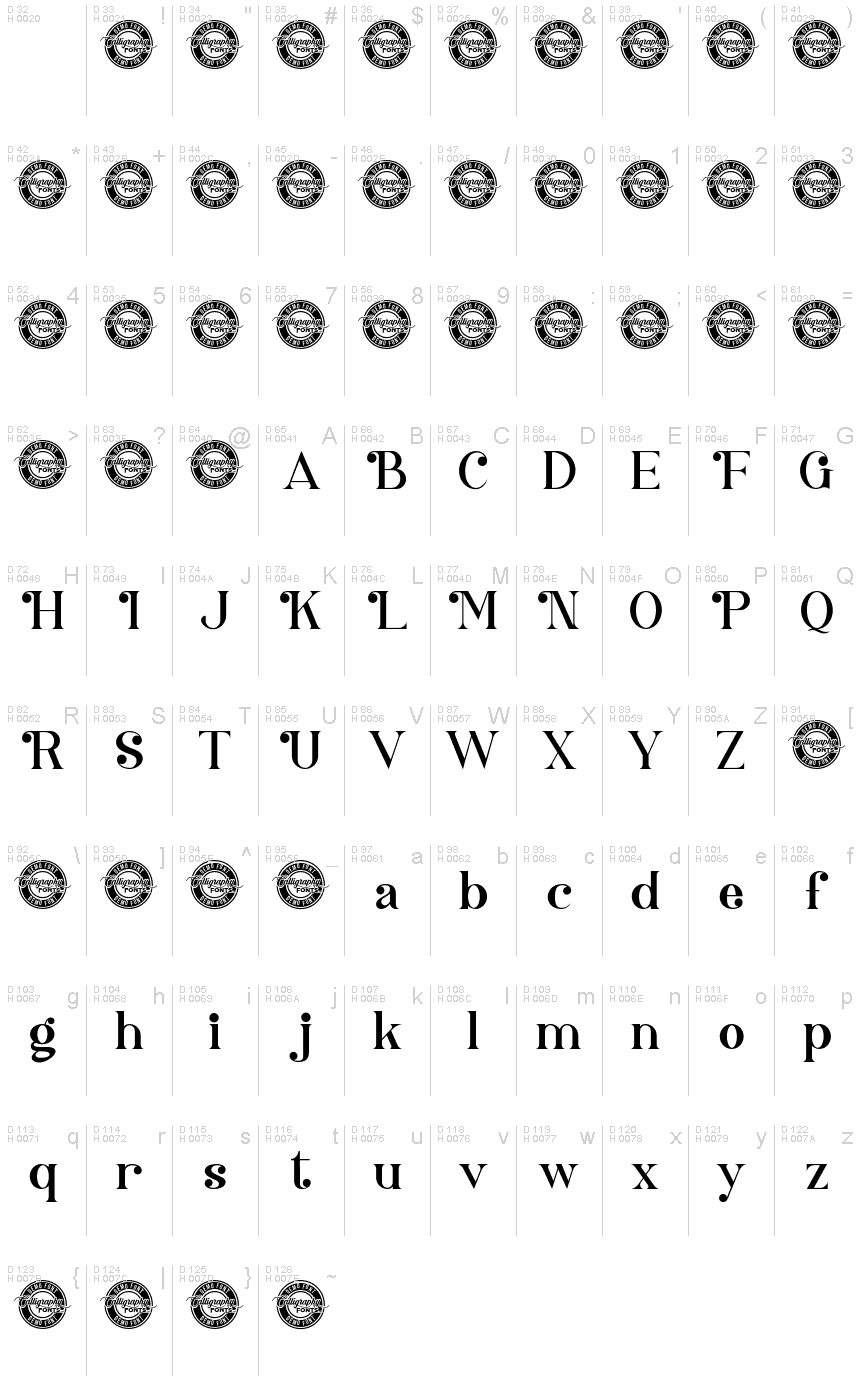
Margalitha Demo
Margalitha is a timeless serif font designed by Widiyanti and Sarah SP. With its classic letterforms and elegant curves, Margalitha is perfect for adding a touch of sophistication to any project. Its versatile style makes it suitable for a wide range of projects, from wedding invitations to fashion editorials, and everything in between. Margalitha's refined look will elevate your design work to the next level, whether you're working on branding materials or creating editorial layouts. The attention to detail in this font ensures that it will stand the test of time and remain a valuable asset in your design toolkit.